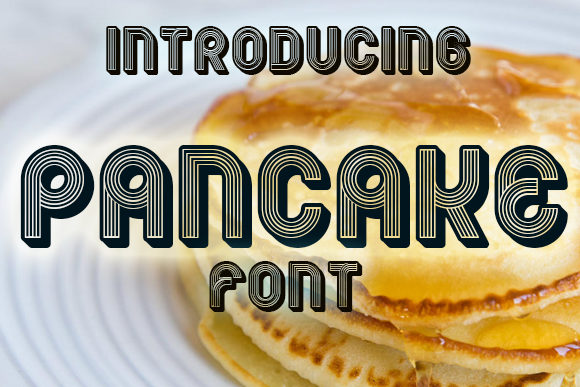
Introducing Pancake Font, the ultimate display font that will transform your designs into captivating masterpieces. Unleash your creativity with this retro-inspired font, meticulously crafted by the talented vladimirnikolic, and witness the remarkable impact it brings to your business cards, posters, logos, and more.
Immerse yourself in the world of Pancake Font, where boldness and elegance harmoniously intertwine. Its thick, rounded characters exude a sense of playfulness and nostalgia, reminiscent of classic diner signs and vintage advertisements. This unique font adds an instant touch of charm and personality to any project, effortlessly capturing the attention of your audience.
Picture your business cards adorned with the Pancake Font, leaving a lasting impression on potential clients and colleagues alike. Its distinctive style will make your cards stand out from the crowd, ensuring that your brand is remembered long after the initial encounter.
But Pancake Font's versatility extends far beyond business cards. Unleash its potential in posters, flyers, social media graphics, and website designs. Its bold presence commands attention, drawing eyes to your message and ensuring maximum impact. With Pancake Font, you'll create designs that resonate with your audience, leaving an indelible mark on their minds.